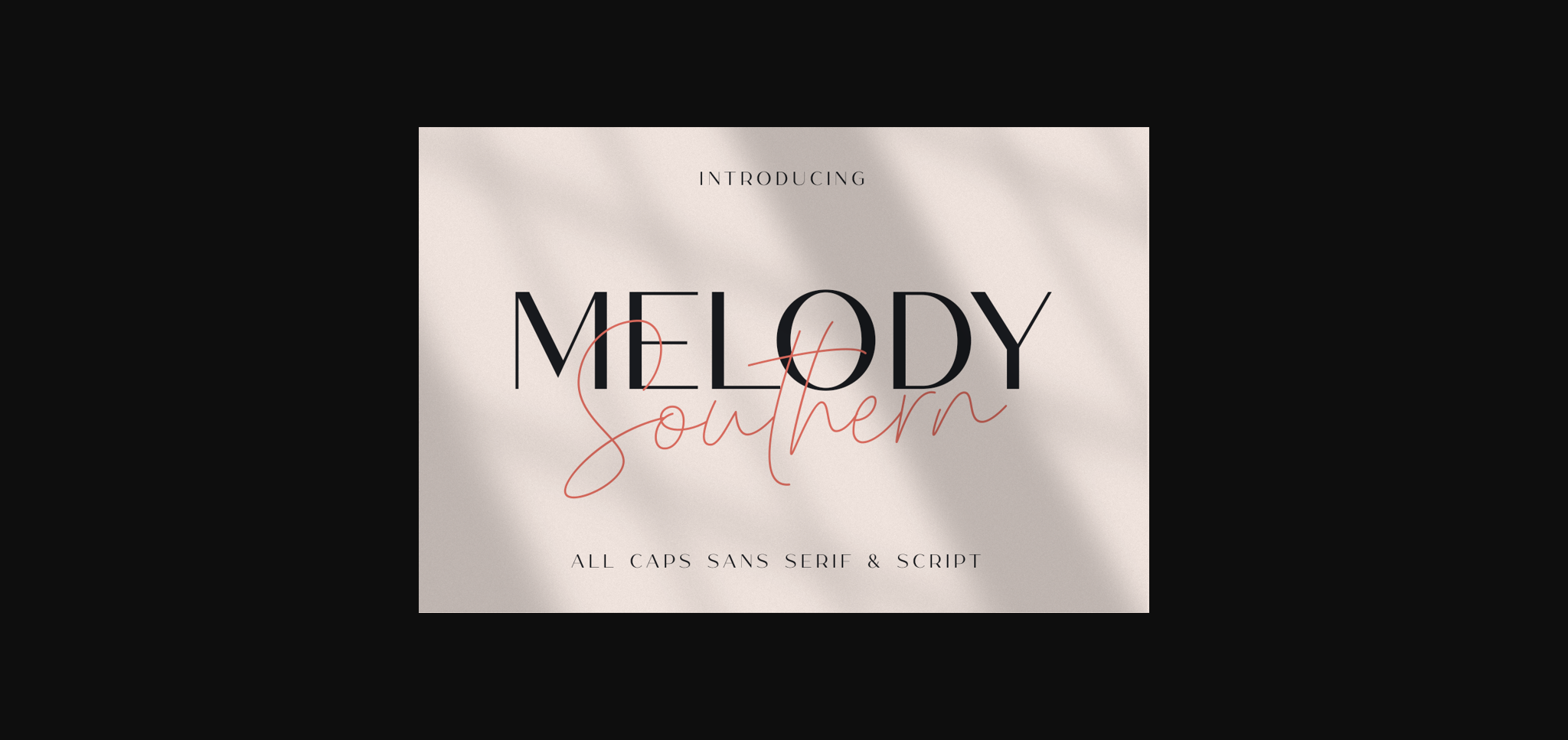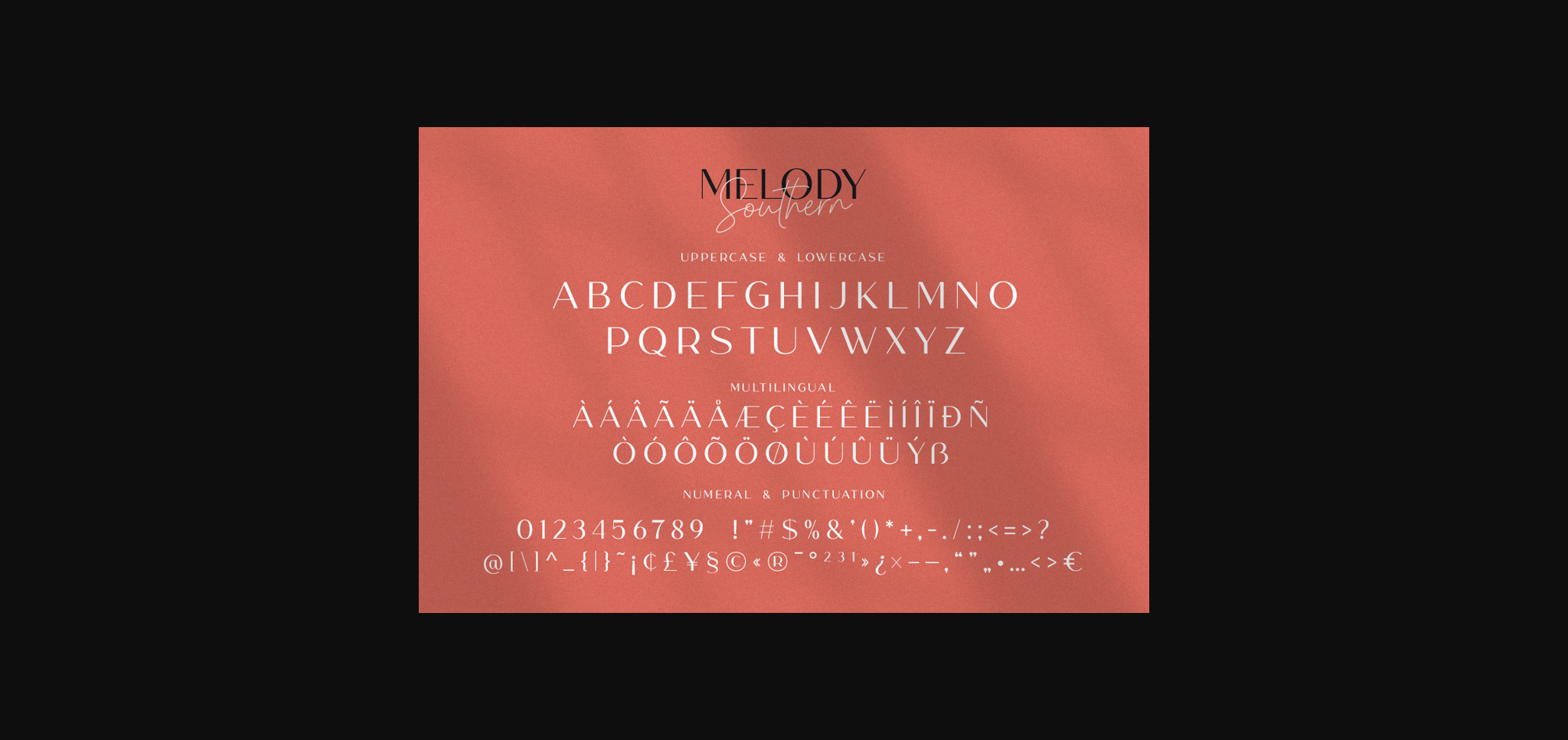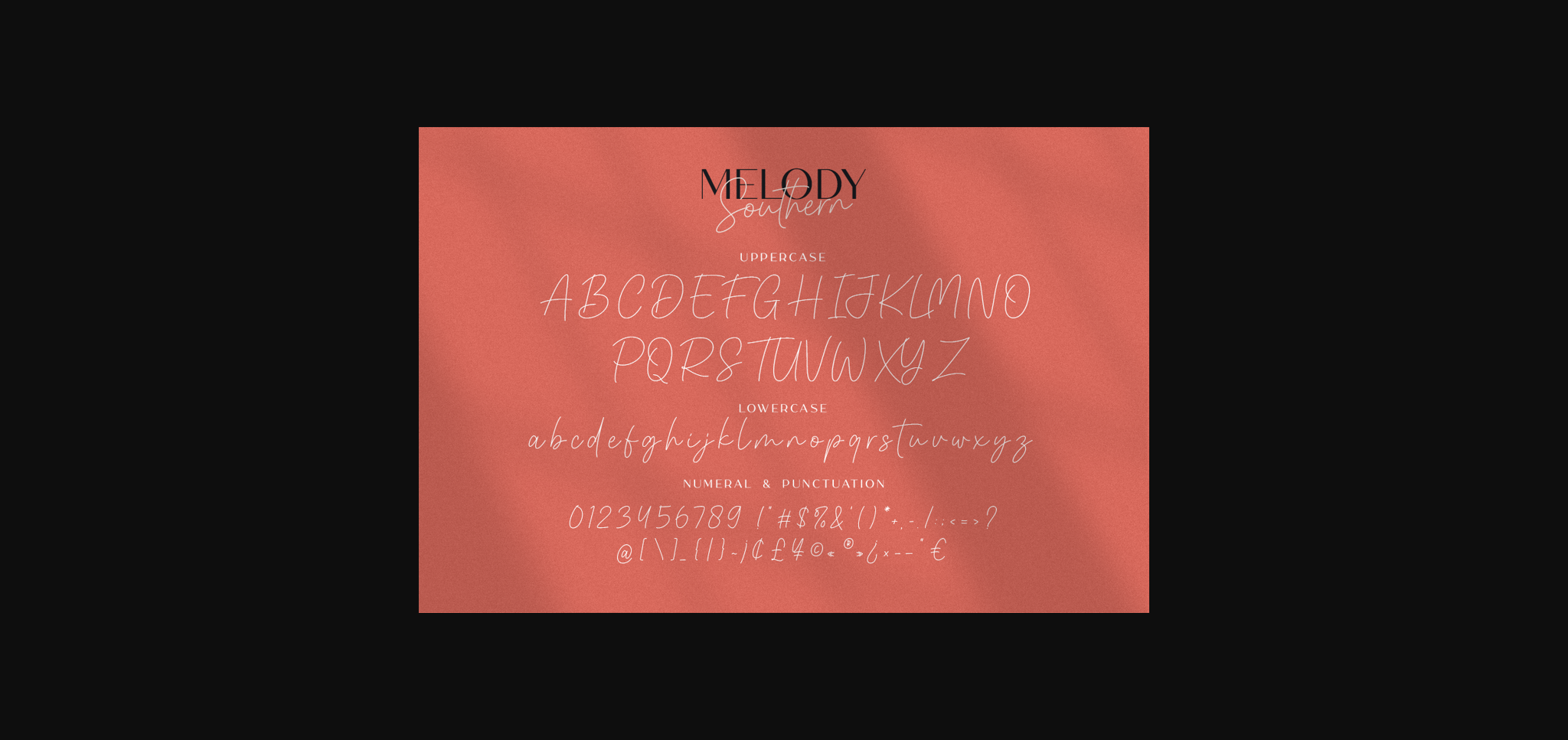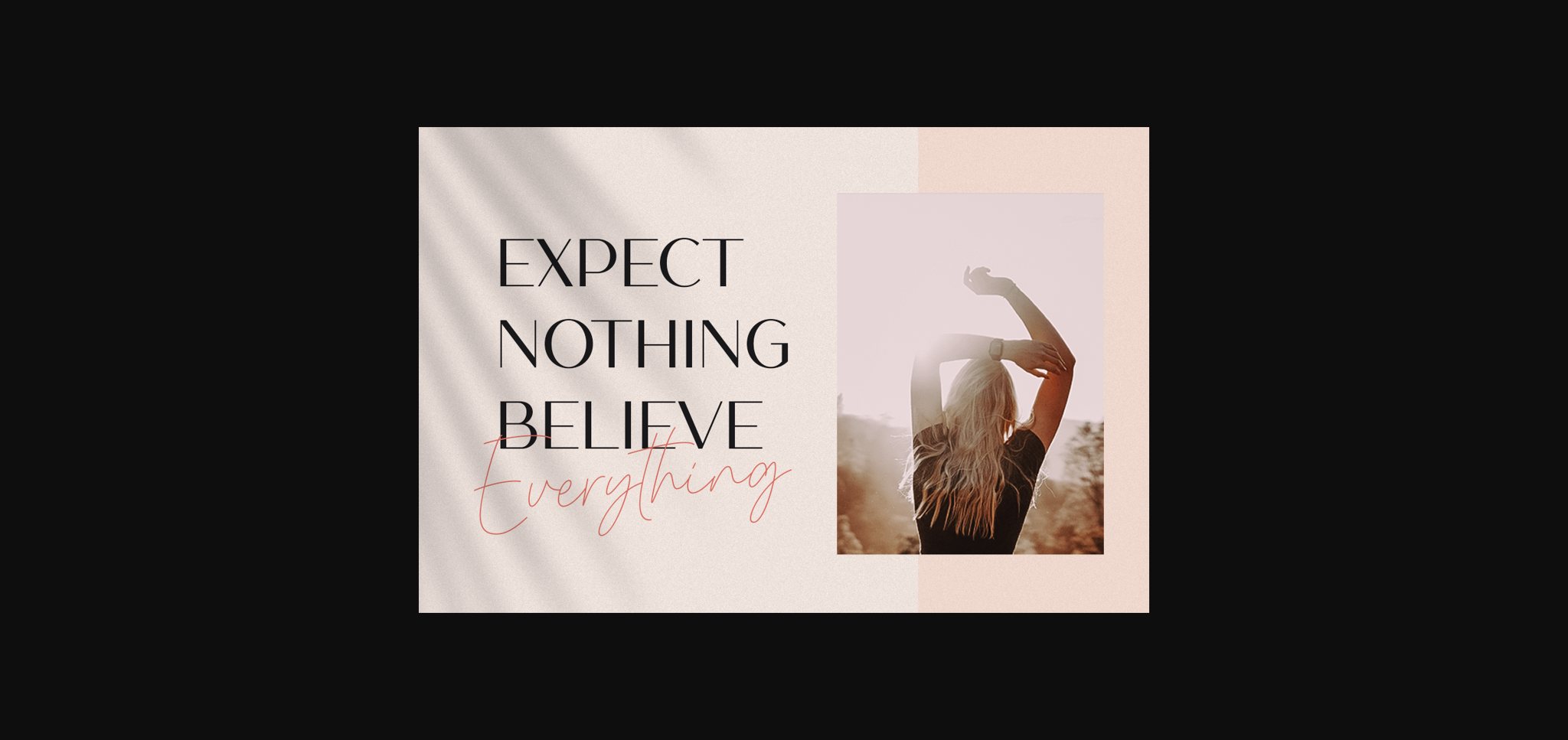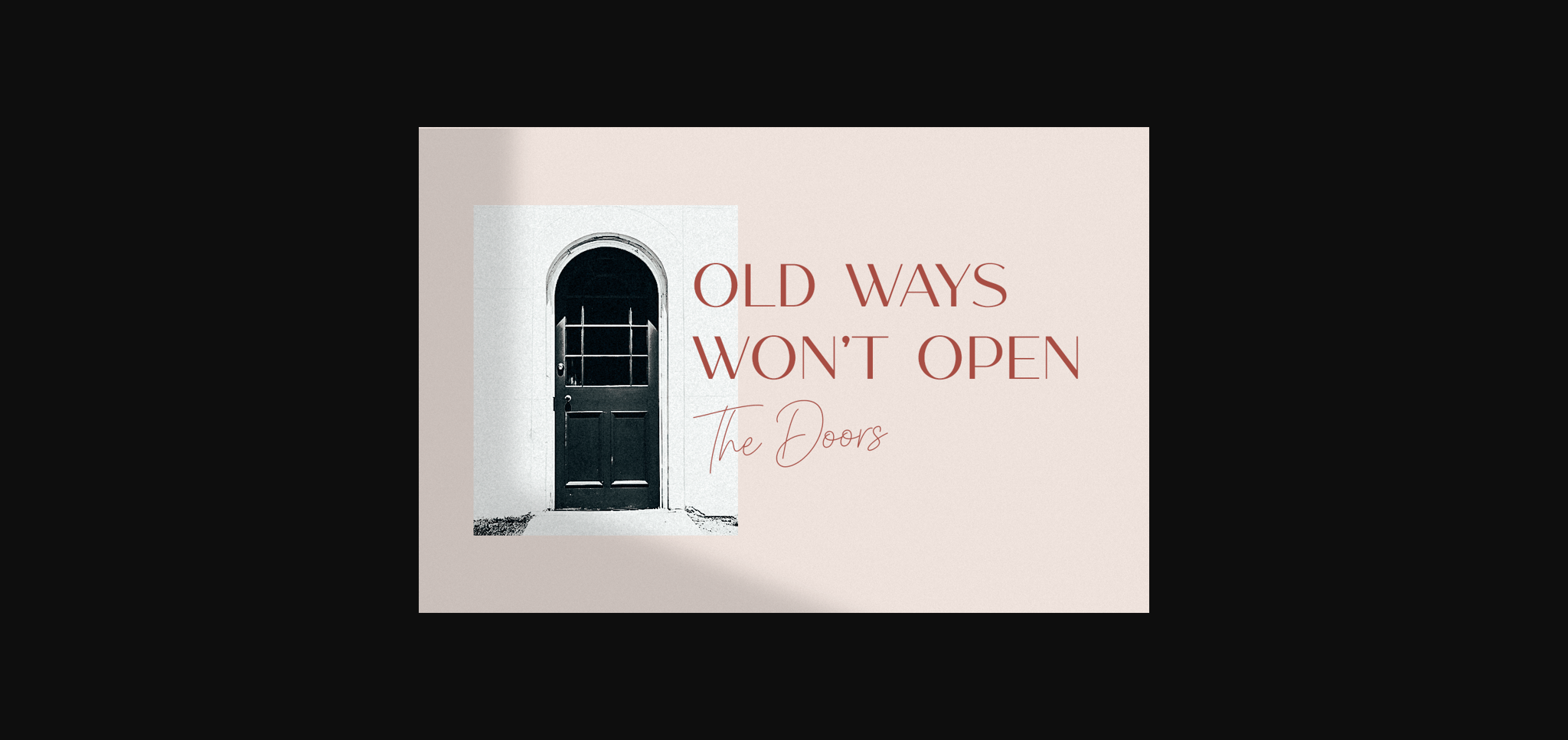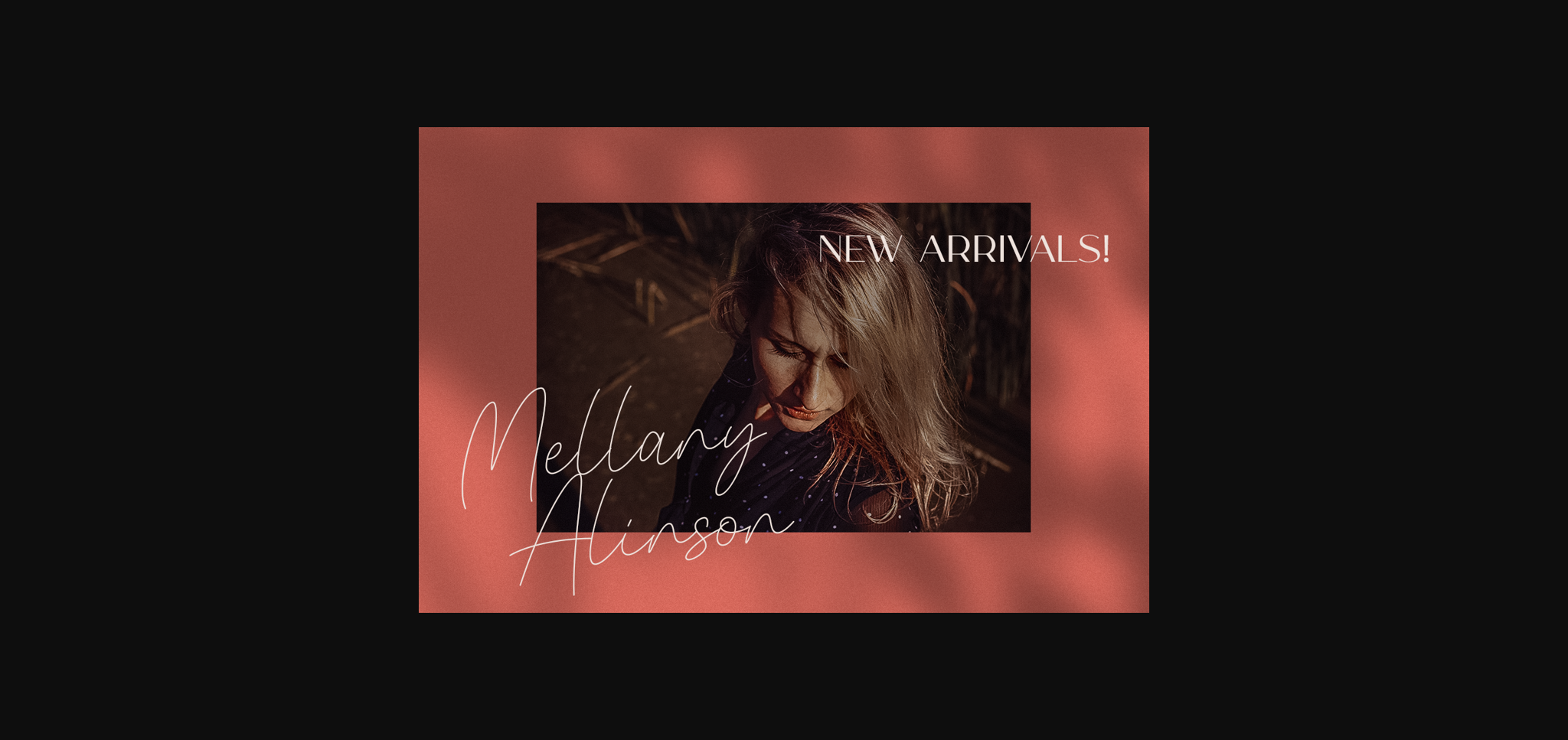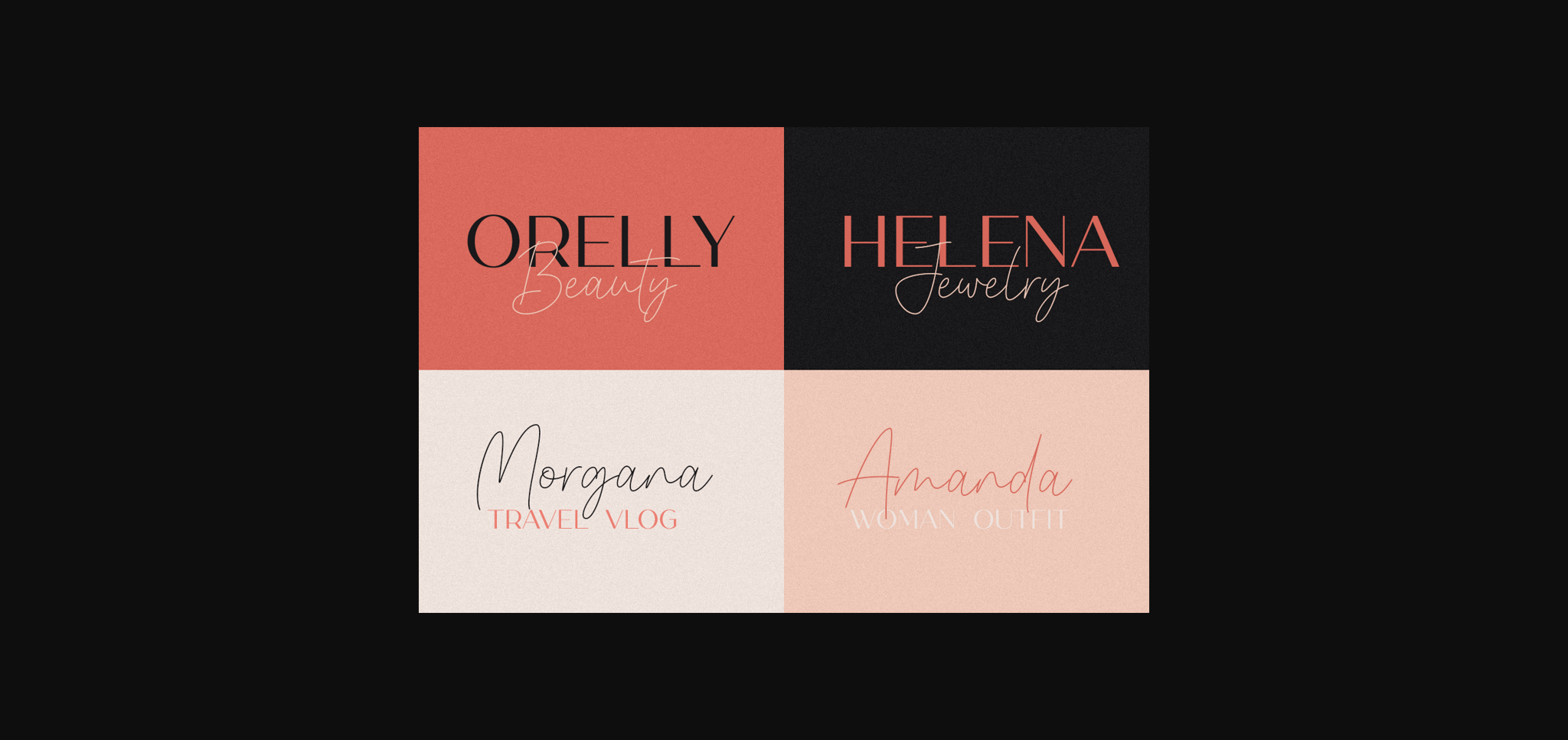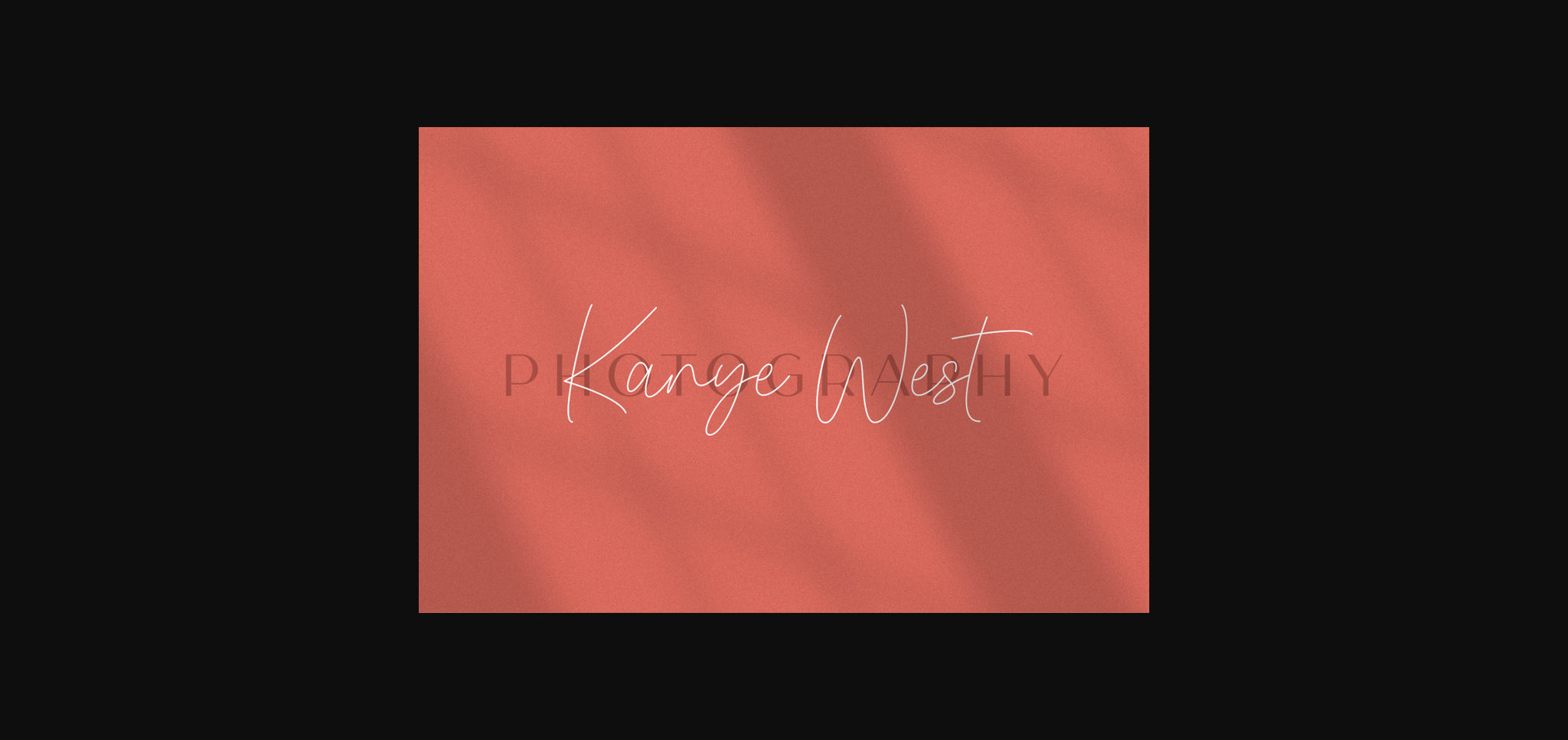
Melody Southern Duo Font
About Melody Southern Duo Font
Melody Southern is a luxury font duo with a combination of elegant all caps sans serif font and an elegant script font that look divine when paired together.